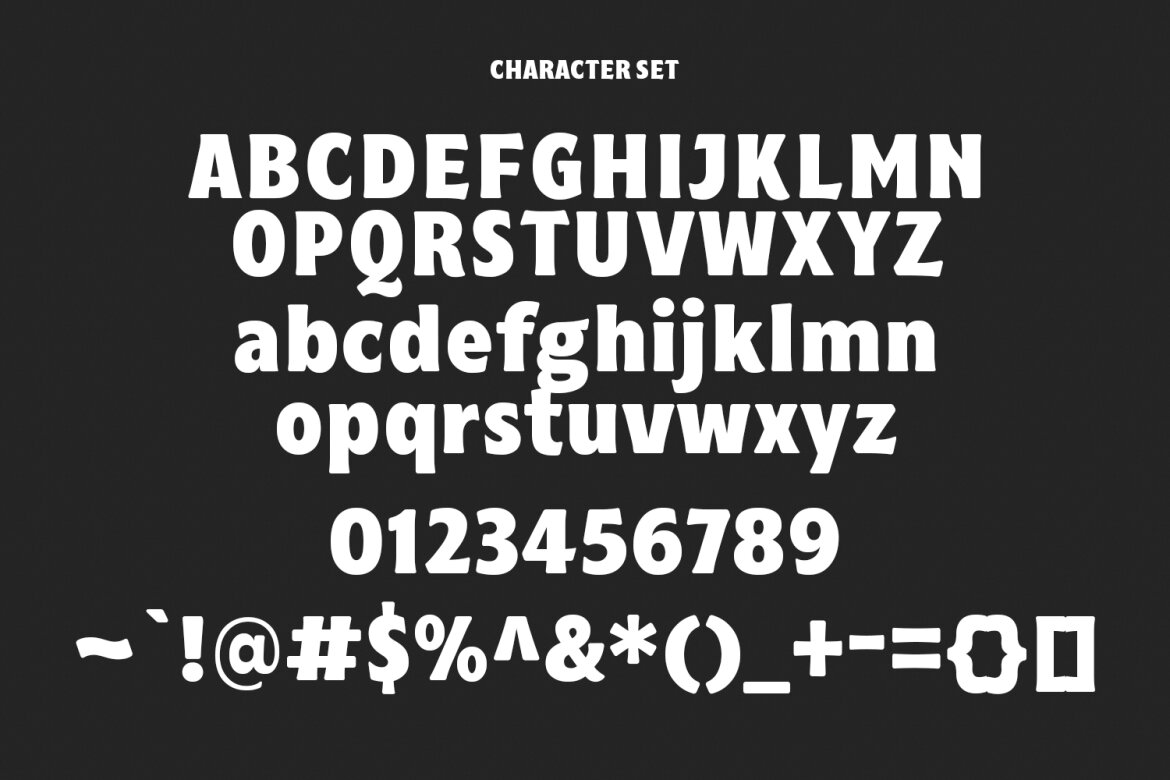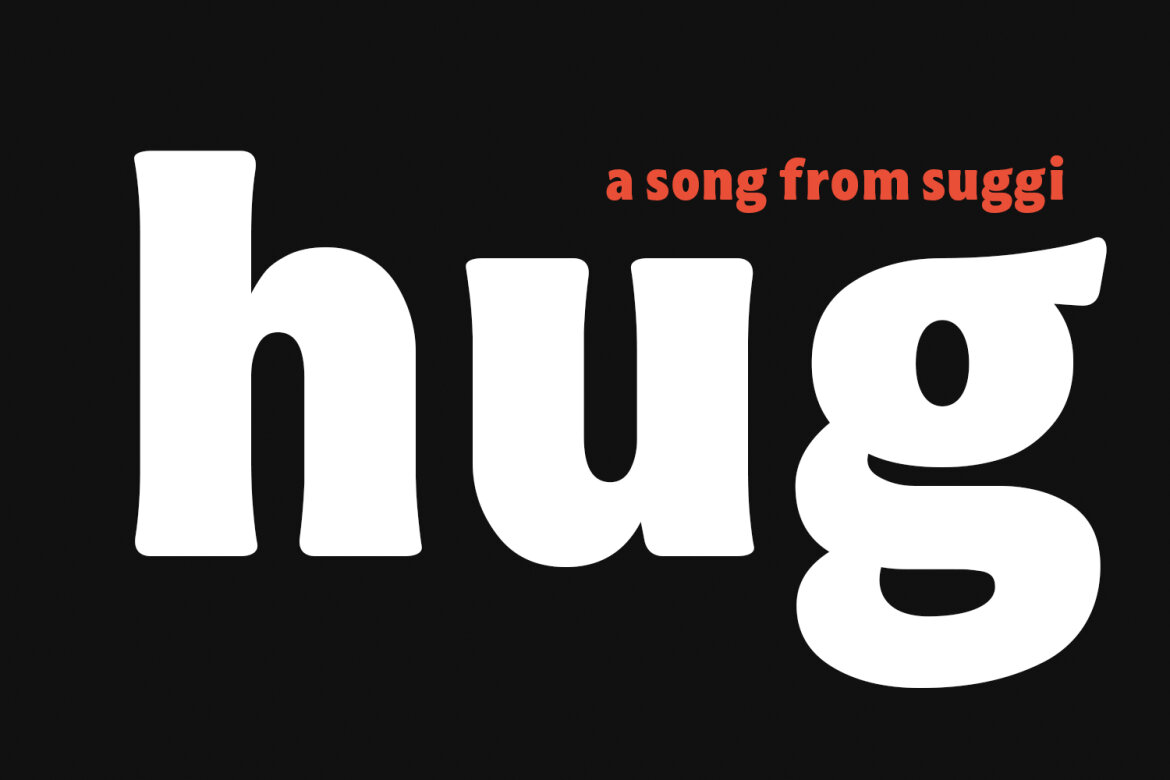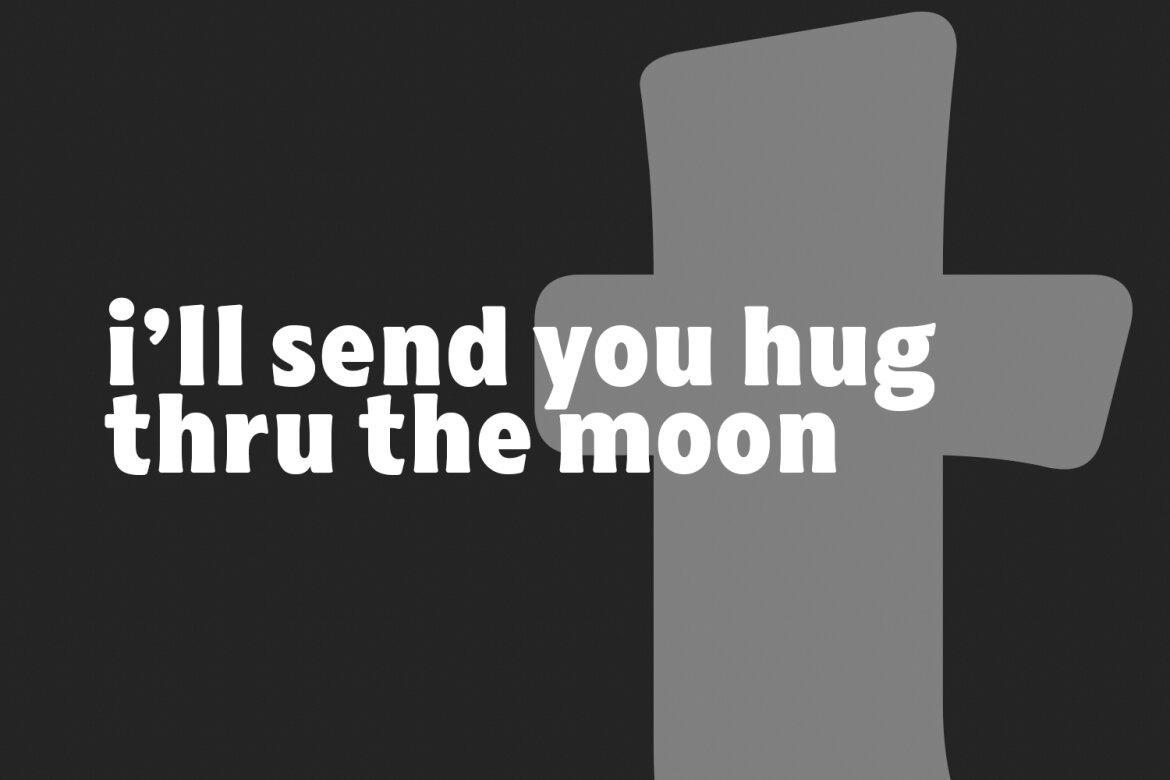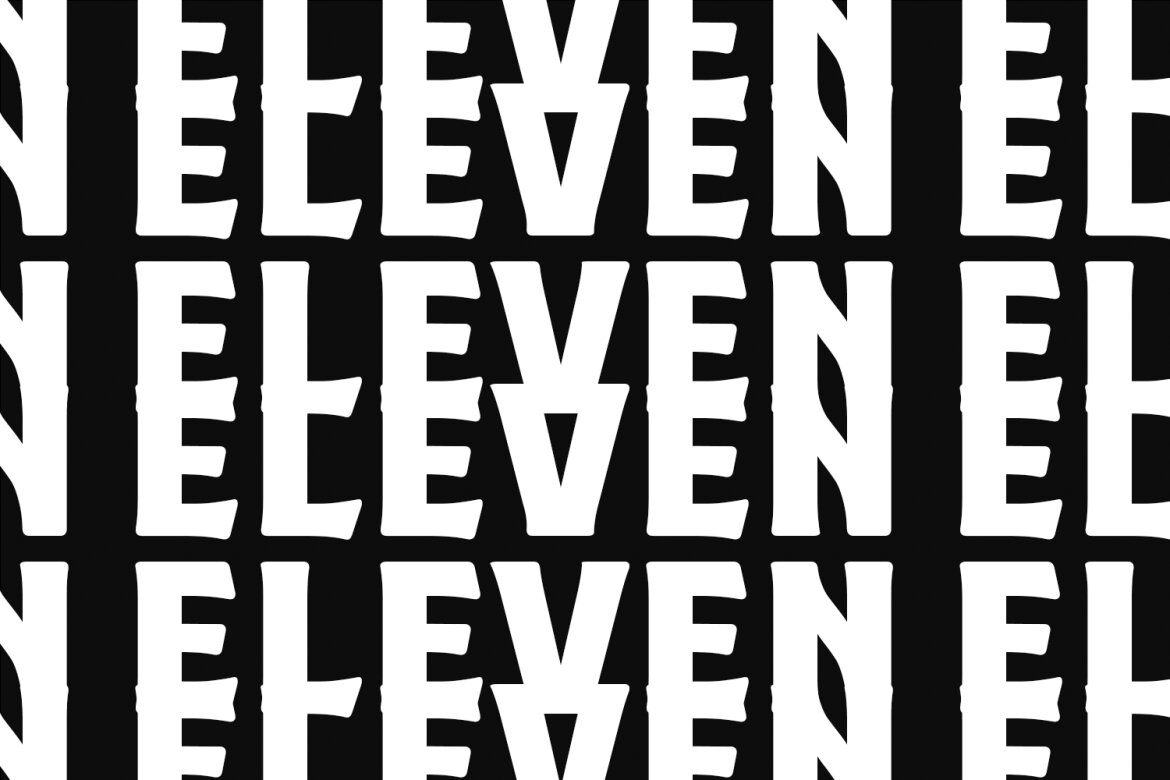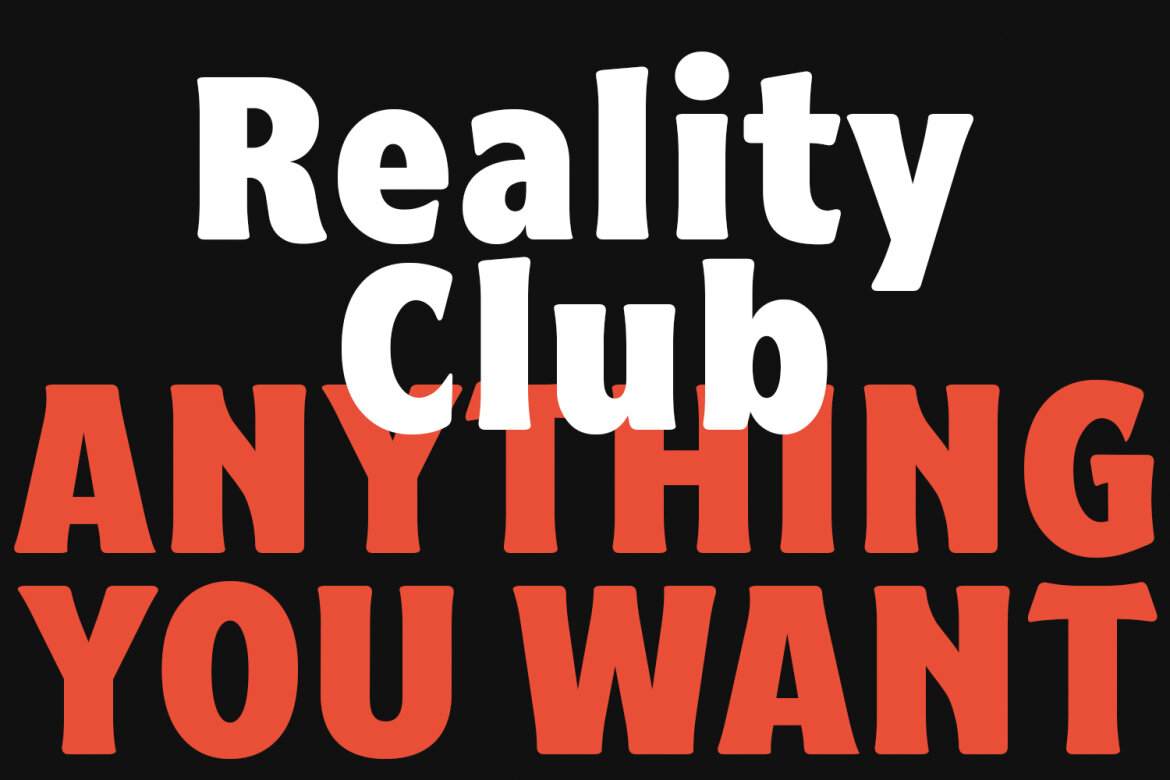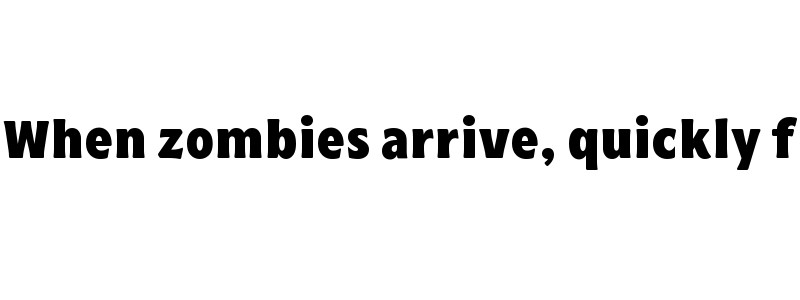
Goofley Display Sans Retro FREE Font
Goofley
Goofley is a Display semi serif font. With medium low contrast stroke, fun character with a bit of ligatures and alternates. To give you an extra creative work. Goofley font support multilingual more than 100+ language. This font is good for logo design, Social media, Movie Titles, Books Titles, a short text even a long text letter and good for your secondary text font with sans or serif. Make a stunning work with Goofley font.